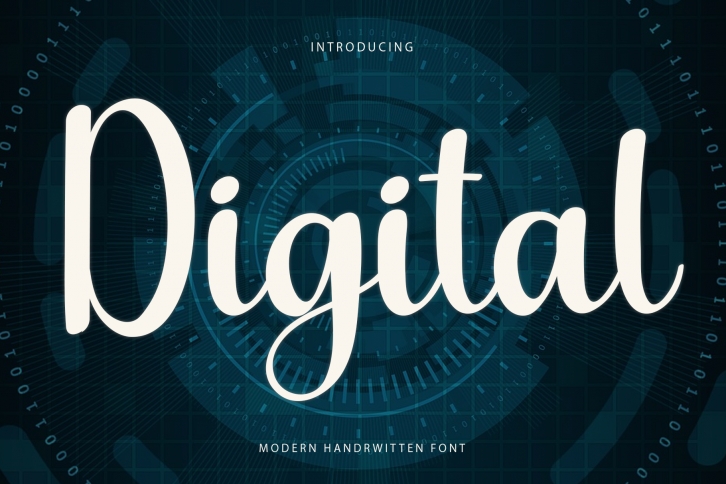
Digital is a unique, round lettered handwritten font that was carefully crafted to produce the desired results. This font can be used to write titles, invitations, letters, and many other types of products.